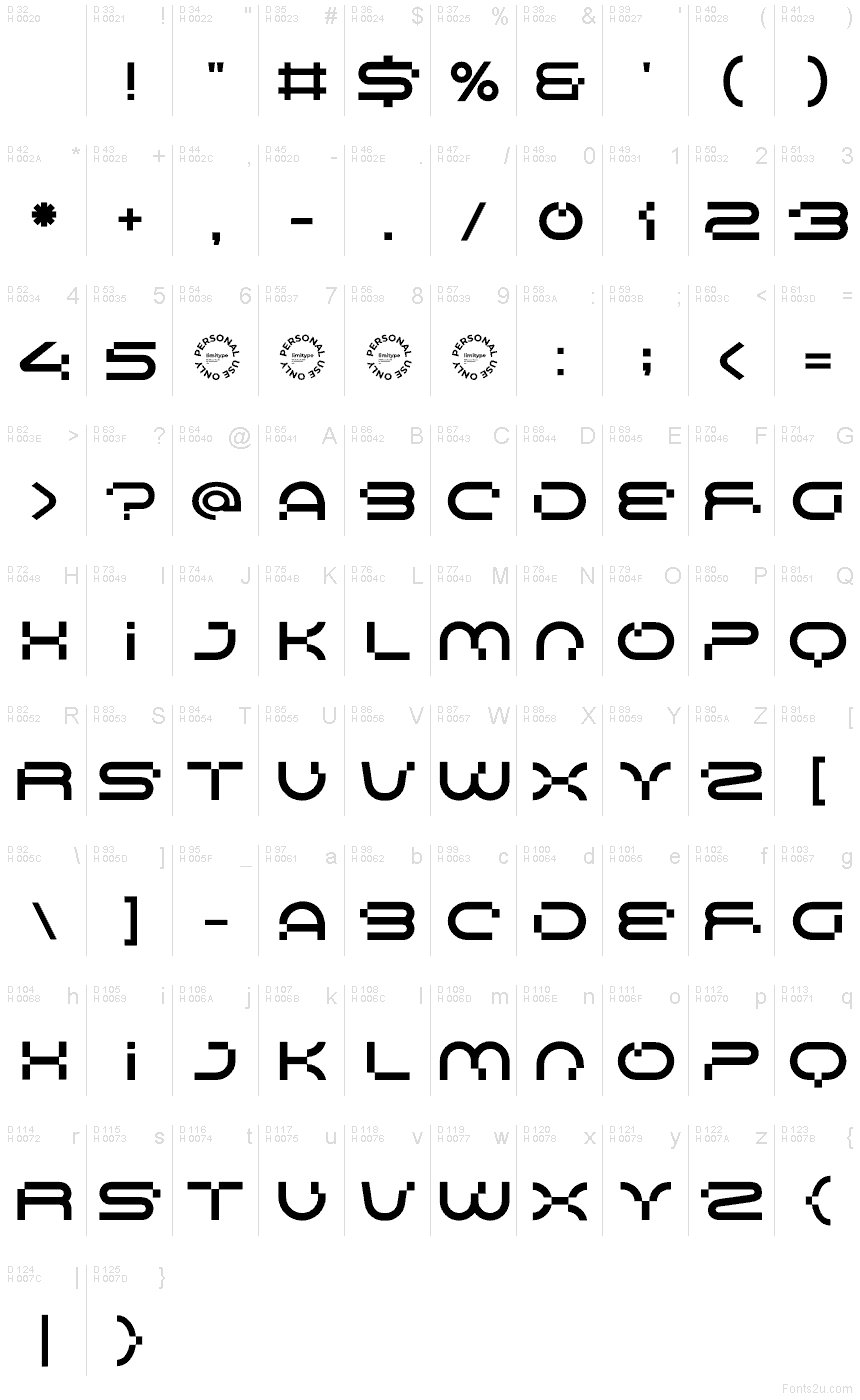
Copixel Demo
Copixel font by Limitype glows with futuristic and expanded shapes making it perfect for tech-related projects. The geometric shapes, fine lines, and square shaped letters are characteristic of minimalist modern fonts suitable for instantly recognizable designs. The free display font grants designers the chance to let their imagination fly.